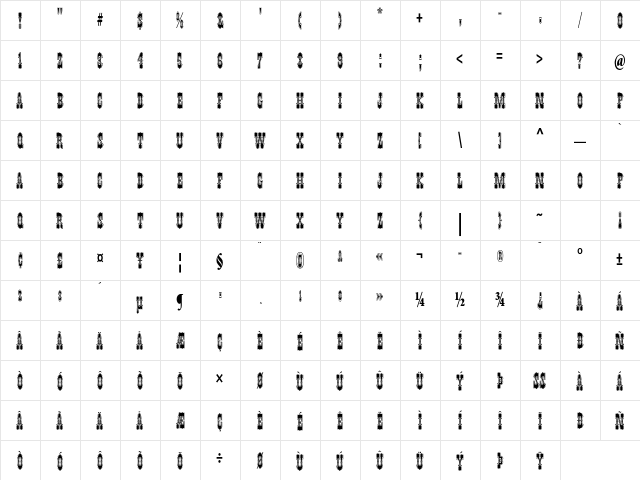
Complete Pepperwood Std Regular glyph index. Displaying only characters natively supported by Pepperwood Std Regular font.
Pepperwood Std echoes the hand-painted signage and woodblock typography of the American frontier, with a warm, rugged personality.
Font Pairing: Combine Pepperwood Std with a simple slab or neutral sans - period-accurate companions reinforce the vintage feel without competing for attention.
Pro Tip: Use Pepperwood Std for short, impactful bursts of text - it shines in poster headlines and product names rather than extended copy.